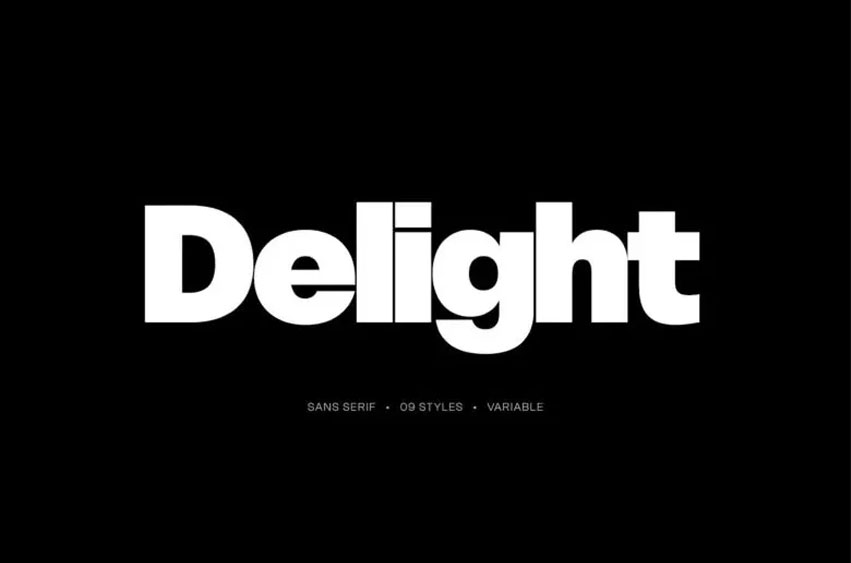
Delight Font
Delight Font is a new sophisticated sans serif type family which is perfect for any creative use. Ideal for website, printing services, application, and media related needs. It is ideal for the creation of big headlines and is adequate for use in the creation of paragraphs. The publisher wants you to have the Delight type family with a total of 9 weights and the only thing you have to do to download those fonts is to contribute a dollar or less / more to support the work.